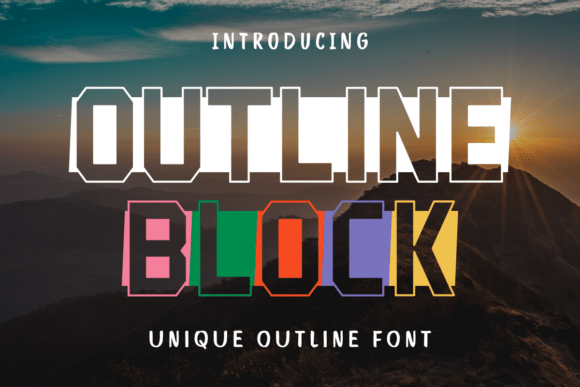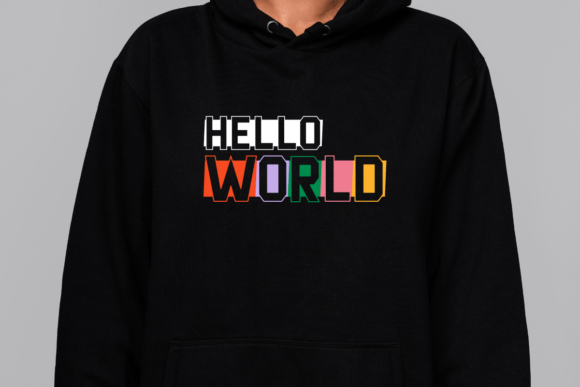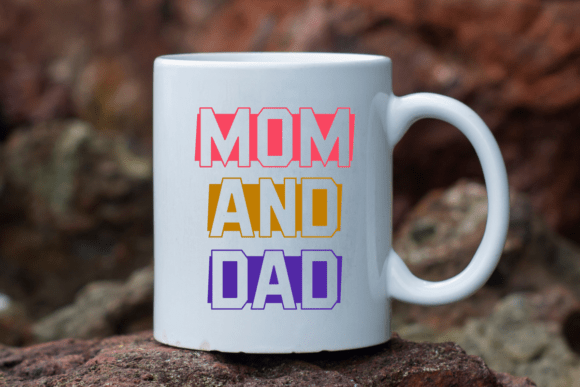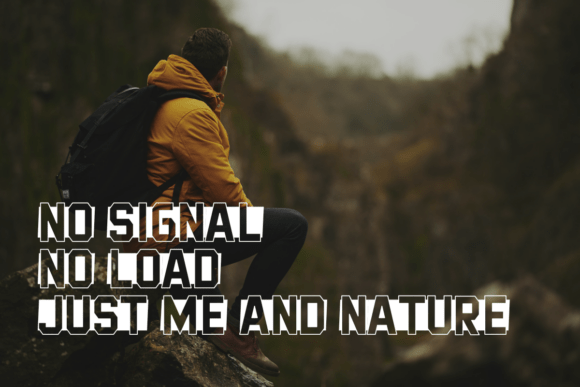
Outline Block Font
About the Outline Block Font
Elevate your designs with Outline Block Font, a font that combines sophistication with readability. Outline Block is a varsity, college, sporty style outline font but has a thick block, suitable for printing, quotes, marching, headlines and also suitable for use for brands and others.
Its bold, playful energy makes Outline Block ideal for headlines, logos, and short, impactful phrases in branding materials, posters, and sportswear designs. The strong outlines ensure excellent readability even at larger sizes. However, its weight and pronounced style make it unsuitable for body text or UI elements requiring high legibility across various sizes.
For a balanced aesthetic, pair Outline Block with a clean sans-serif like Open Sans for body copy or a more refined serif like Merriweather for a touch of classic elegance. Consider a contrasting geometric sans-serif like Montserrat to add a modern edge. Avoid pairing it with other highly decorative or overly playful fonts; a simpler, more neutral companion will best showcase its unique character.
Outline Block projects a confident, energetic personality, best suited for brands focused on athleticism, youth culture, or products emphasizing strength and dynamism.